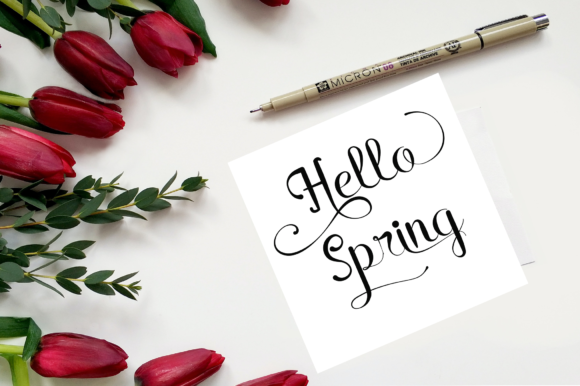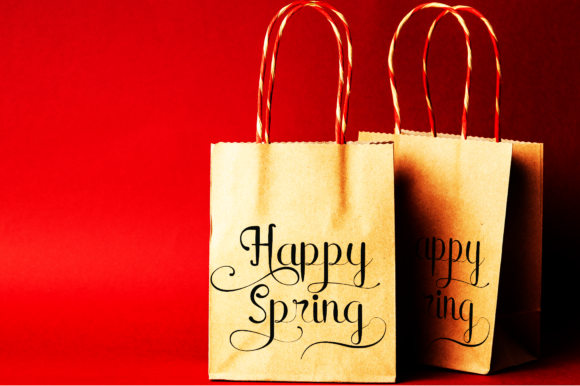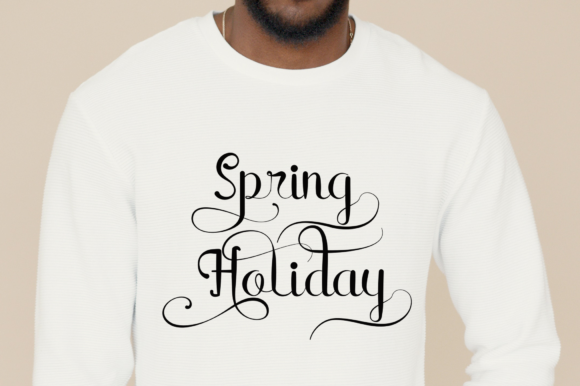
Introduction to Rain in Spring Font
Rain in Spring is a stylish modern script font that is suitable for branding, signature, wedding invitation, promotion, product packaging, and other needs.
This stunning handwritten font is a stylish homage to classic calligraphy It will elevate a wide range of design projects to the highest level.
Rain in Spring Font offers exceptional quality and versatility, making it a valuable addition to your design toolkit. Whether you’re creating for personal projects or commercial use, Rain in Spring Font delivers professional results.